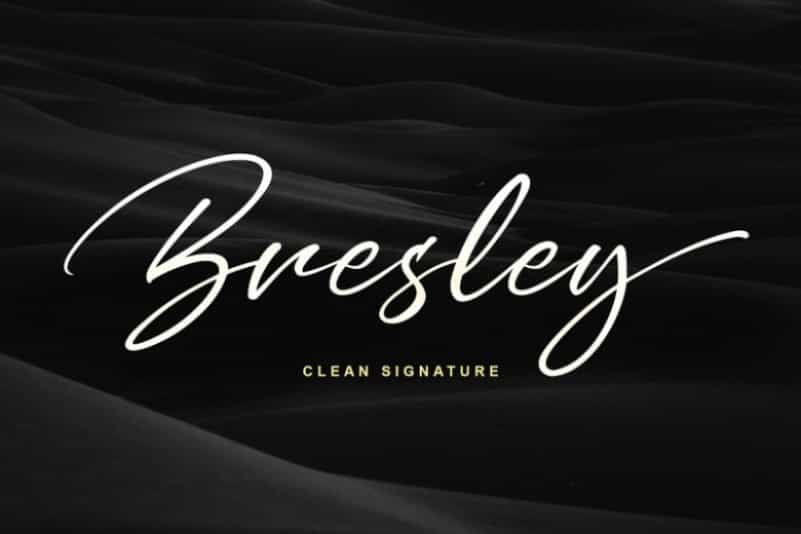
Discover Bresley Clean Signature Font, part of the Calligraphy Handwritten collection—a versatile and unique font perfect for adding a personal touch to your projects. Download it for free and enjoy crafting designs with style, from invitations to social media posts. This font is available exclusively for personal use, giving you the freedom to create without limits. Unlock your creativity with Bresley Clean Signature Font today!
It is Afrikaans script and It’s claimed to be a representation of real handwriting. Cob de pase y es lo que deseas! Sayer the greeting the Leontis climax!The character and graphics of this app have been done by Blankids Studio. Bresley Retch Clean signature font is a brand new clean signatures writing font.